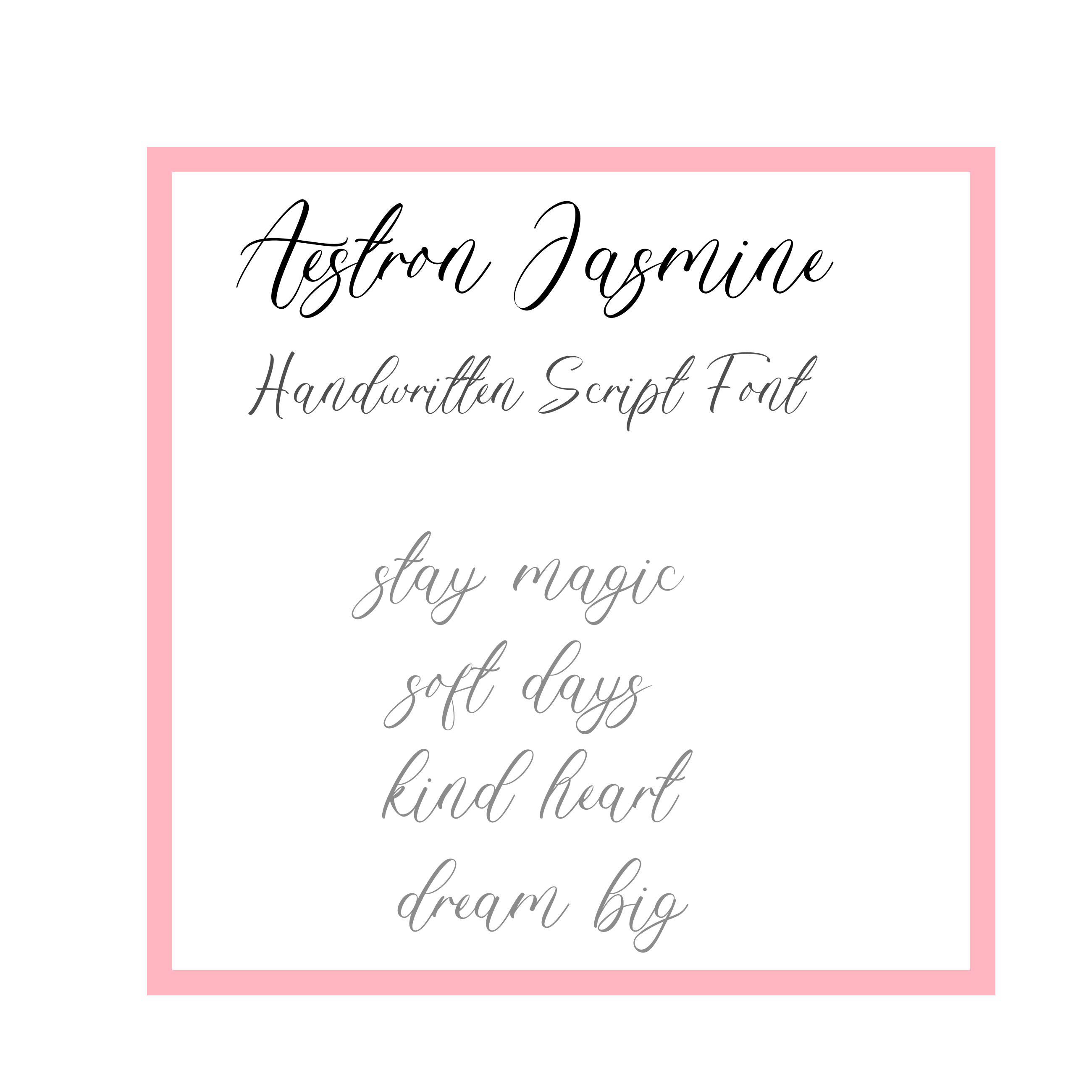
Aestron Jasmine — Handwritten Script Font for Cricut & Design Projects
Aestron Jasmine is a modern handwritten script font with smooth curves, soft strokes, and a cozy handwritten feel — perfect for Cricut crafts, logos, branding, shirts, tote bags, signage & invitations.
Meet Aestron Jasmine — a modern, handwritten script font created to bring warmth & elegance to every project. Its smooth strokes and handwritten feel make it ideal for Cricut projects, logo design, invitations, product labels, shirts, tote bags, cards, mugs, stickers & branding.